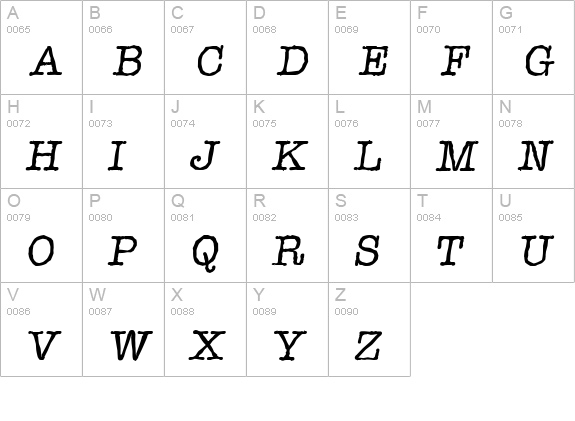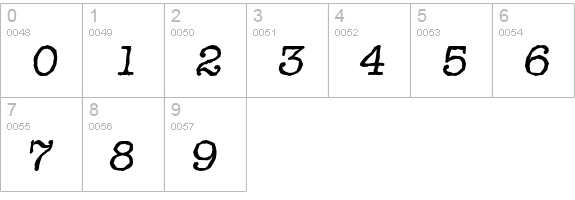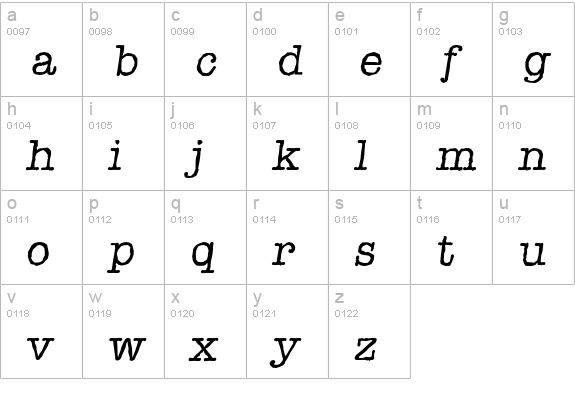
TypewriterAntique-Italic Font Details
TypewriterAntique-Italic is a distinctive, italic variant in the TypewriterAntique typeface family \xE2\x80\x94 well suited to design and typography projects.
TypewriterAntique-Italic font is a stunning vintage-inspired typeface that exudes elegance and sophistication. Its italicized style adds a touch of charm and uniqueness to any design project. This timeless font is perfect for creating a classic and nostalgic feel in your work. And the best part? TypewriterAntique-Italic font is completely free to download at FontsMarket.com! Now you can add a touch of antique beauty to your projects without breaking the bank. Whether you're designing invitations, logos, or any other creative endeavor, this font is sure to elevate your work to the next level. Don't miss out on this amazing opportunity to enhance your designs with the exquisite TypewriterAntique-Italic font. Download it for free today and start creating stunning visuals that stand out from the crowd.